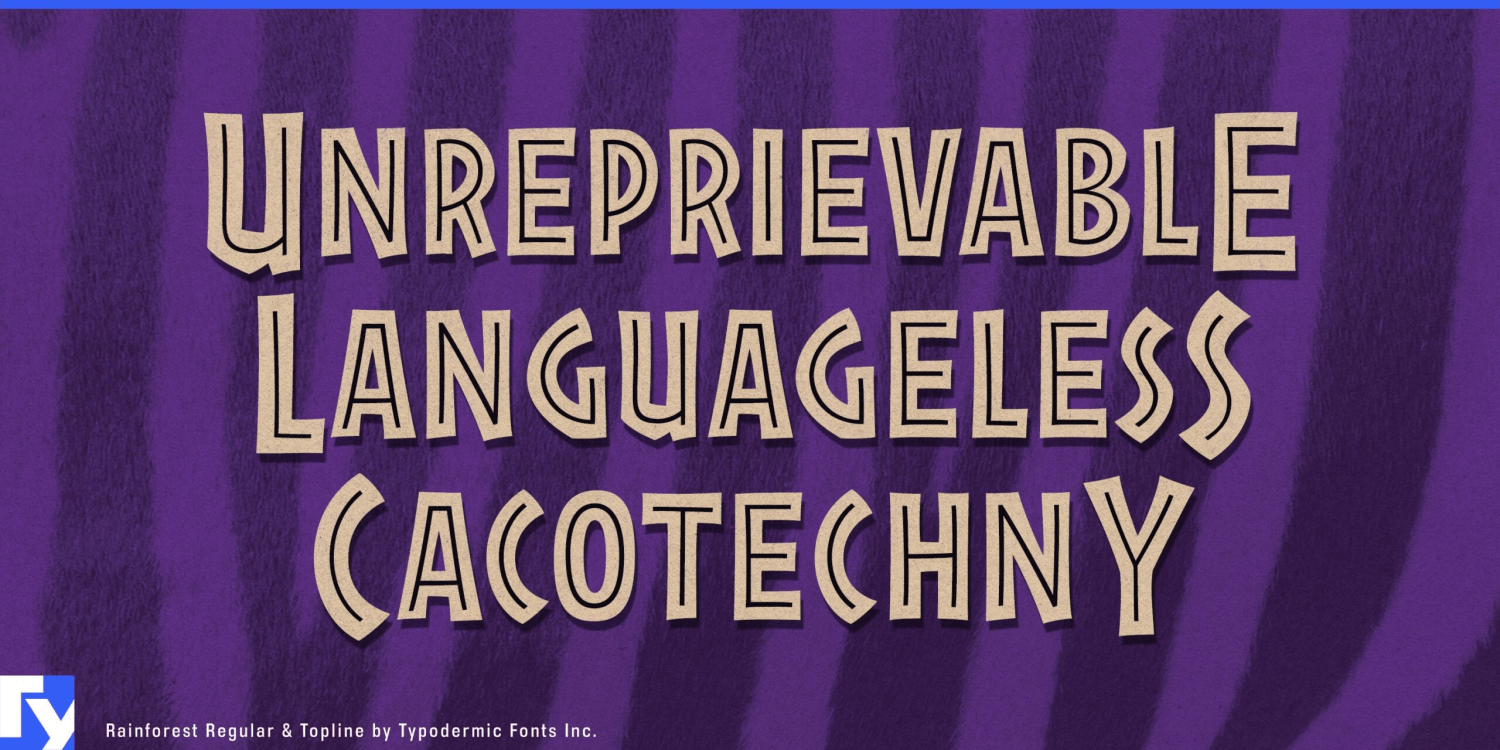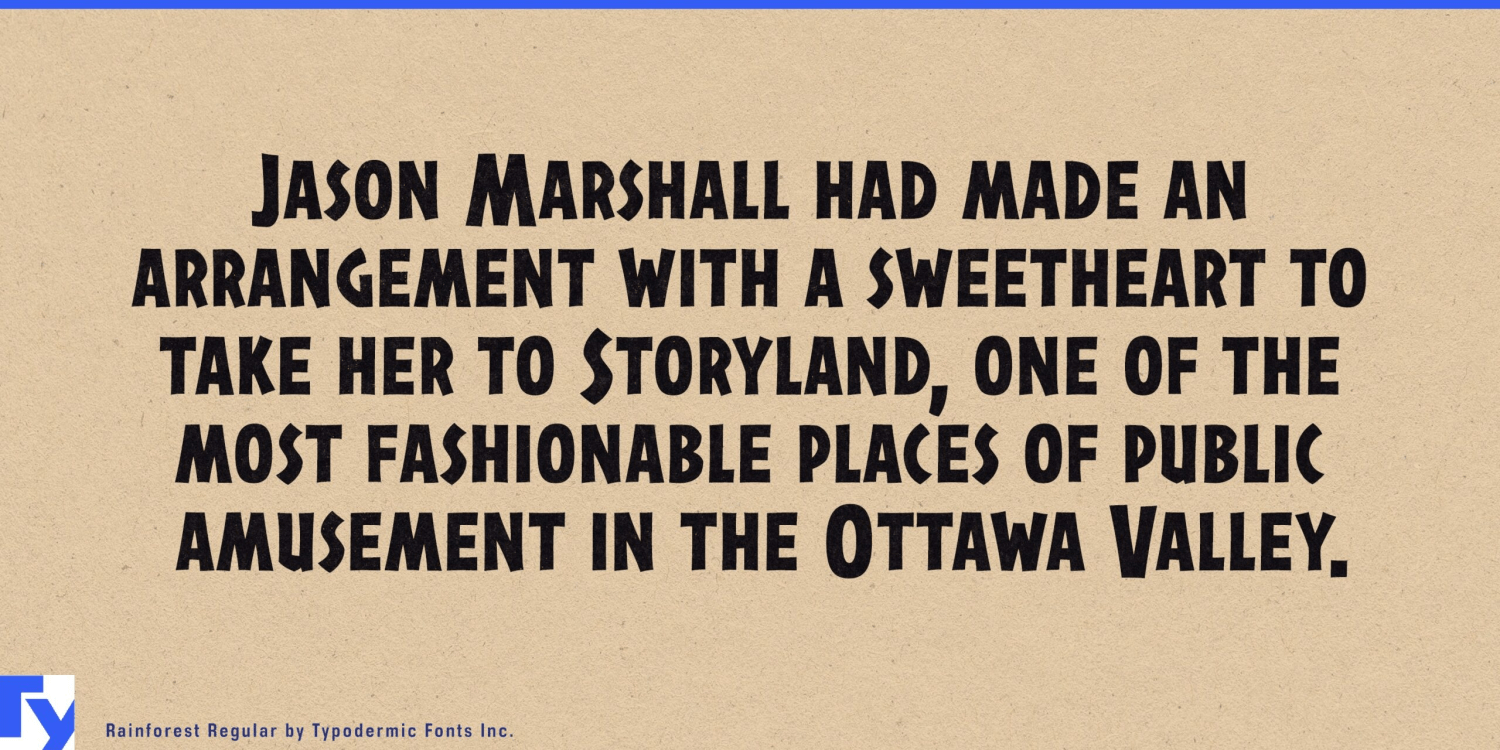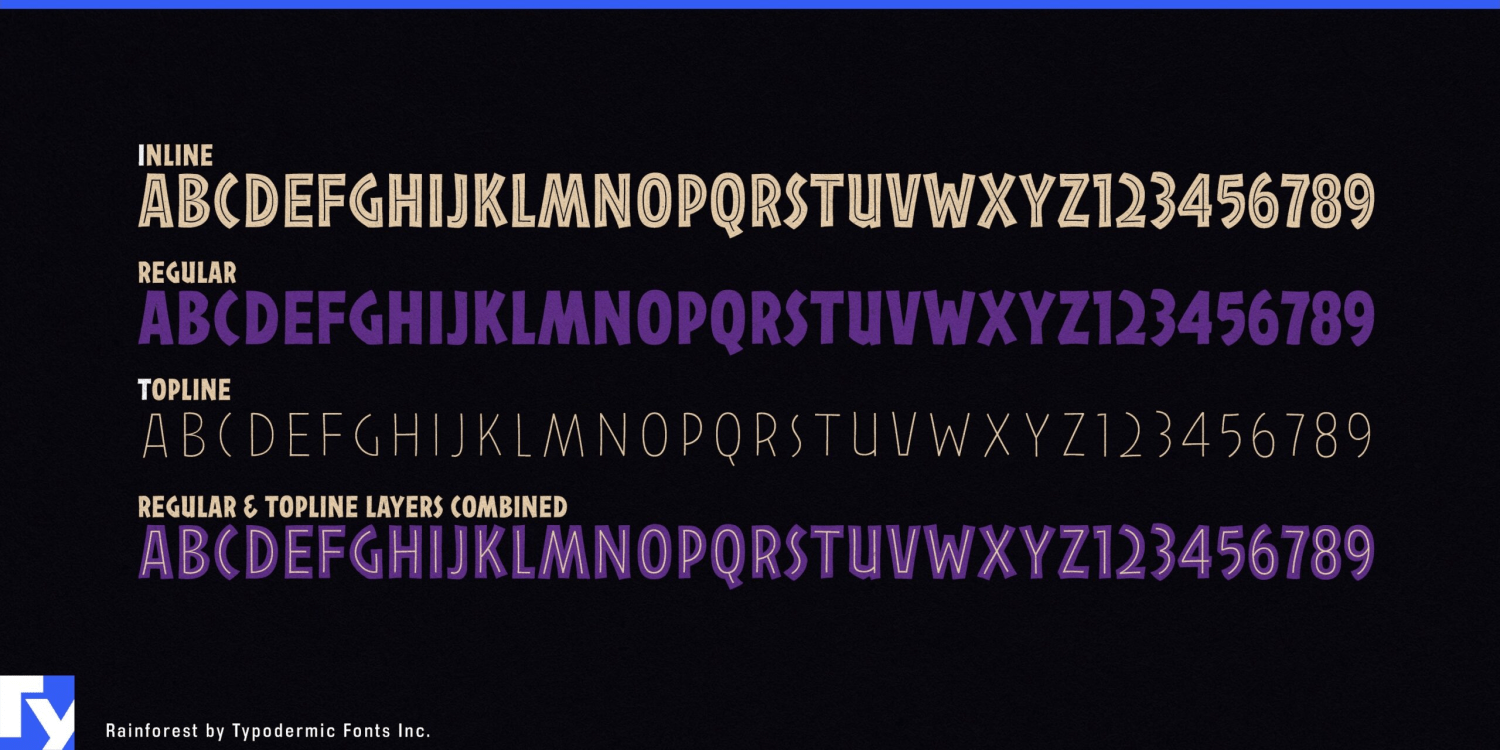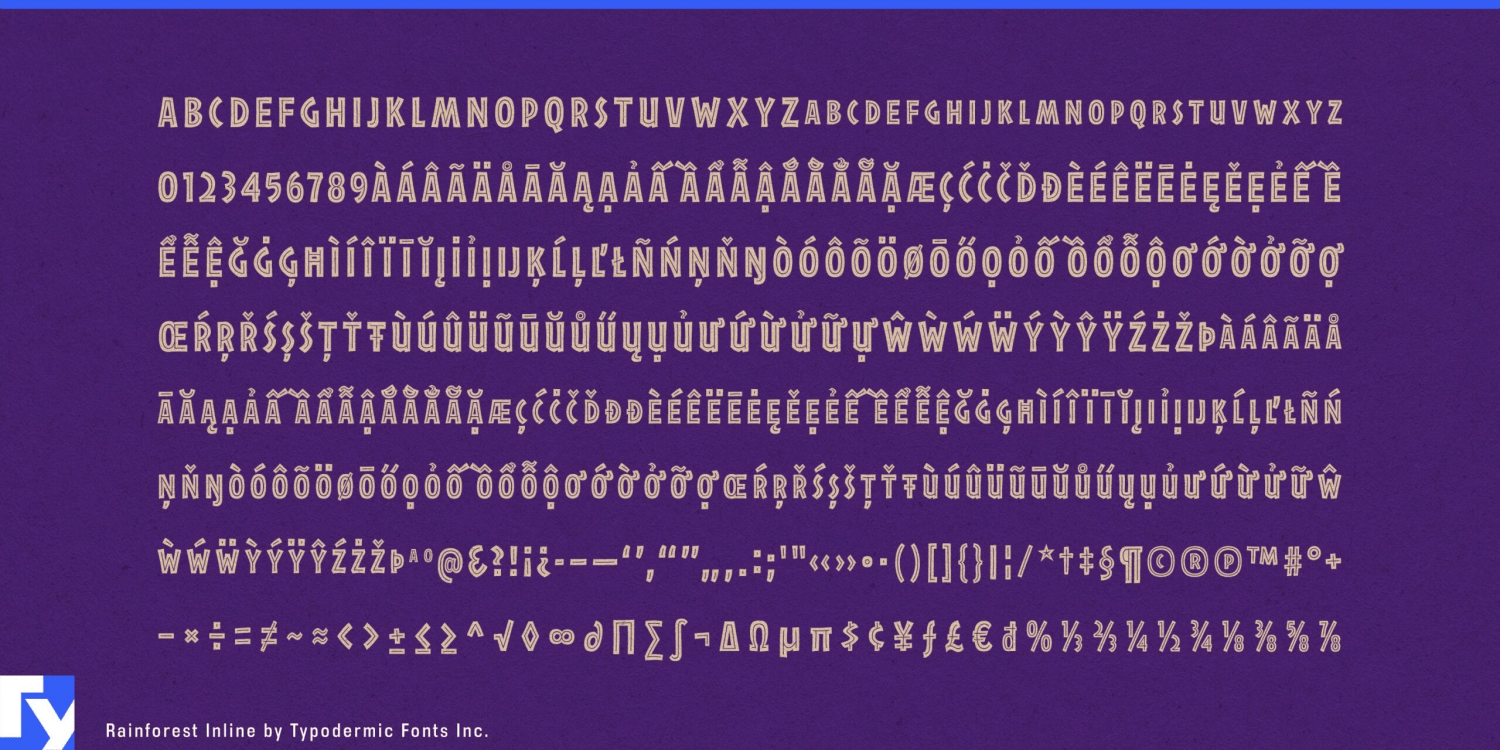
About Rainforest
Step into a world where letters breathe life and adventure with Rainforest, a small caps display typeface that captures the raw essence of nature’s most vibrant ecosystem. Inspired by the iconic Jurassic Park logo, Rainforest doesn’t just…